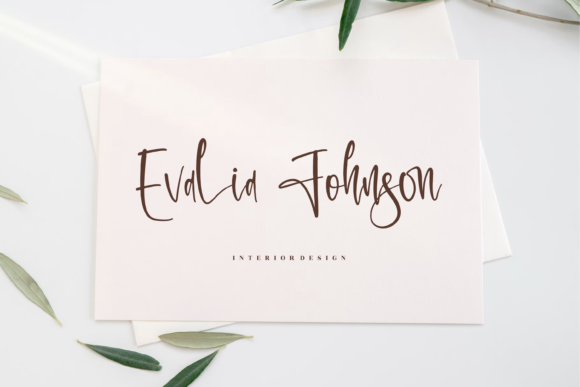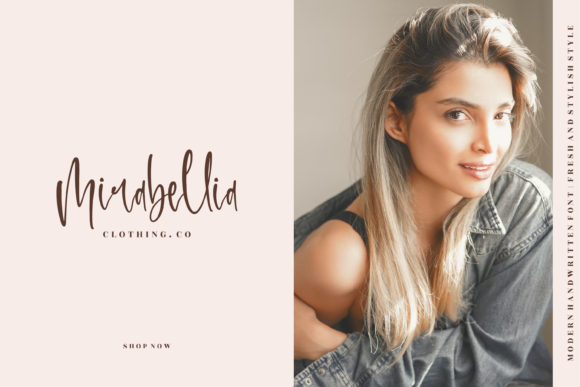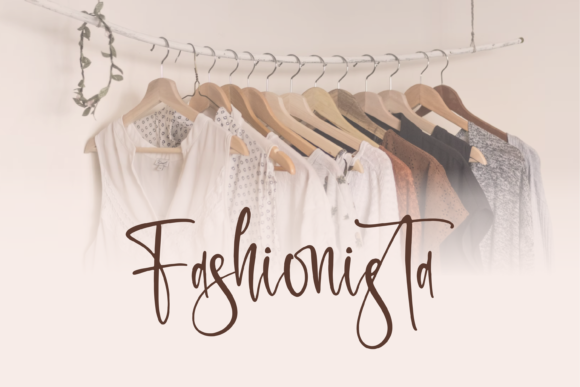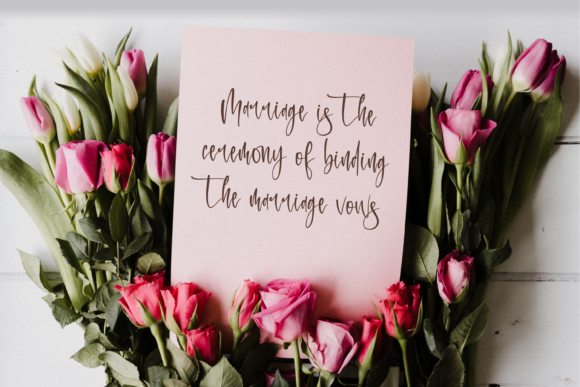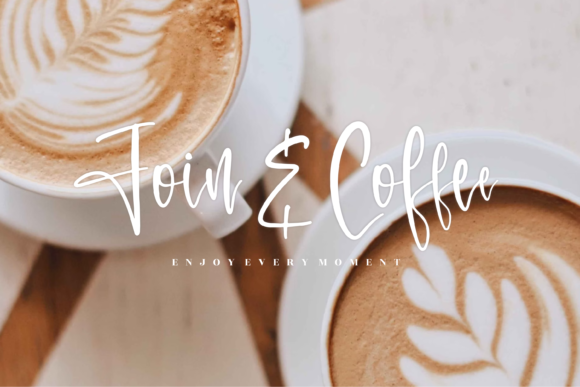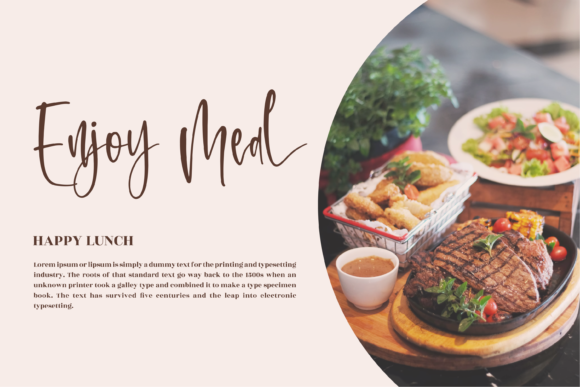
Introduction to Montain Fight Font
Montain Fight is a beautiful and refined script font.
It has a classy, elegant and modern look that can be used for logos, branding, invitations, stationery, wedding designs, social media posts, and much more .